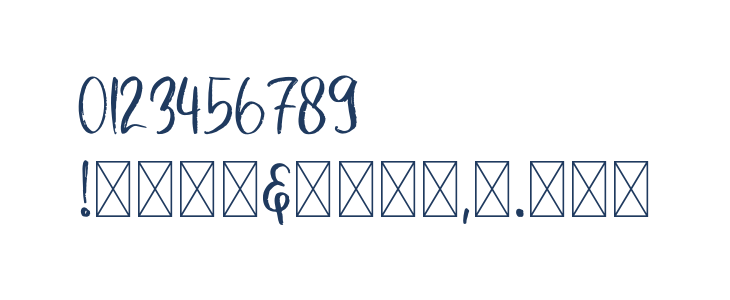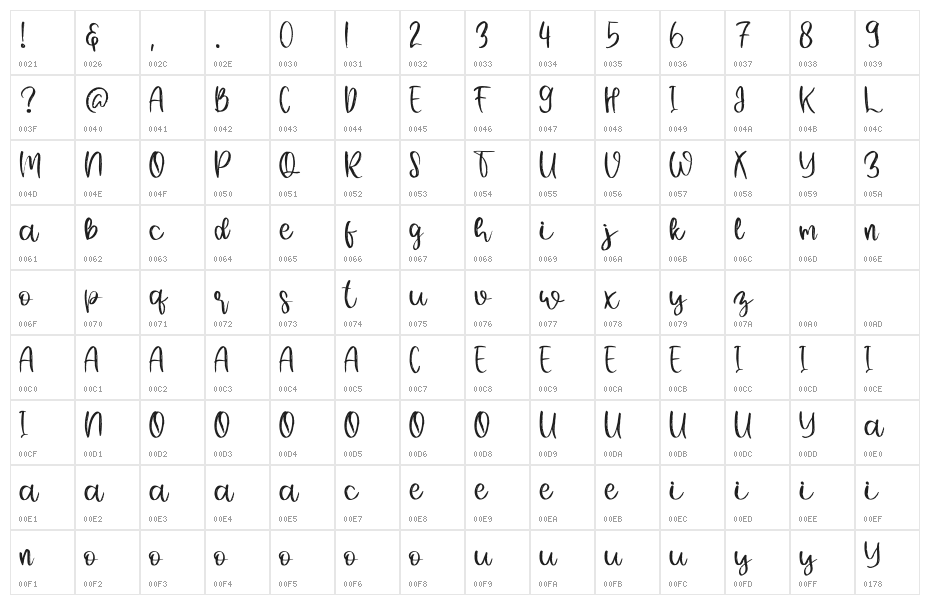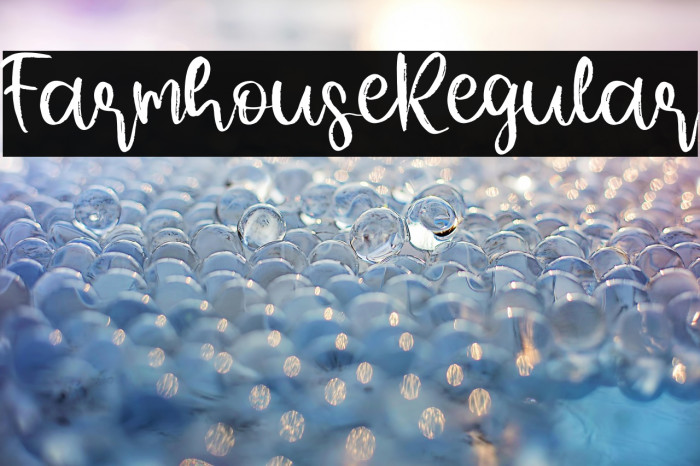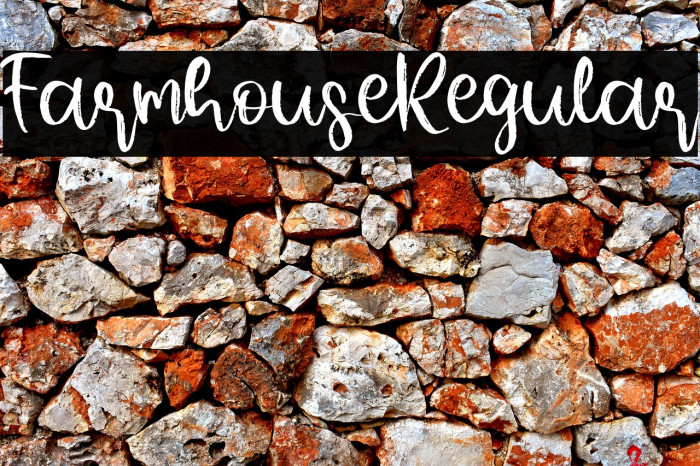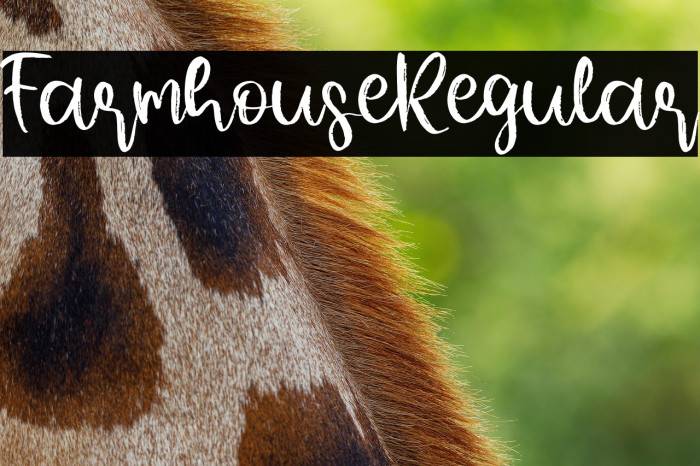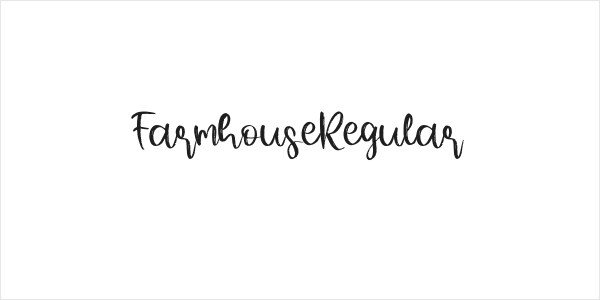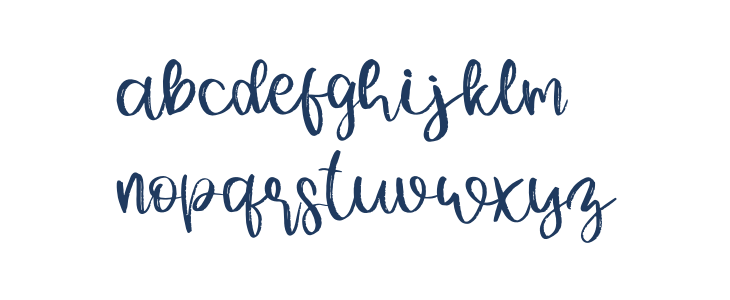
FarmhouseRegular Font
FarmhouseRegular Description
This font features a charming, rustic style with a handwritten appearance, evoking a sense of warmth and personality. The letters are crafted with a brush-like texture, giving them a slightly rough and organic feel. The uppercase and lowercase characters are both playful and casual, with a slight slant that adds to the informal aesthetic. The numbers and special characters maintain this cohesive style, making the font versatile for various design needs. The overall look is reminiscent of hand-painted signs, perfect for projects that require a personal touch.
Overall StyleRustic, Handcrafted
Use CaseLogos, Invitations, Decorative Text
Proposed ProjectsIdeal for wedding invitations, greeting cards, farmhouse decor, and branding projects that require a personal, handcrafted feel.